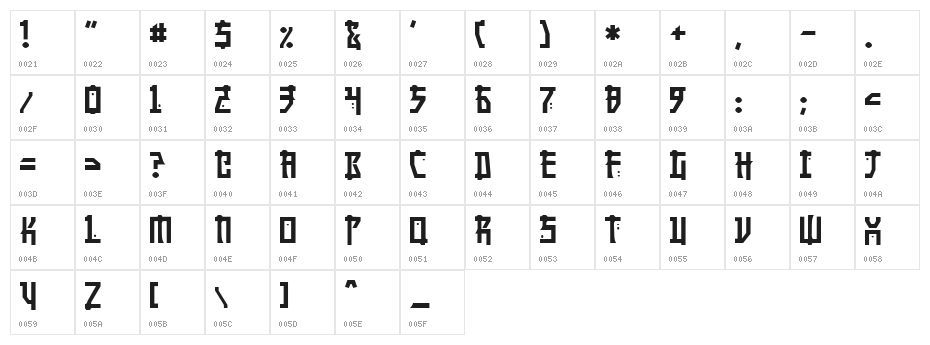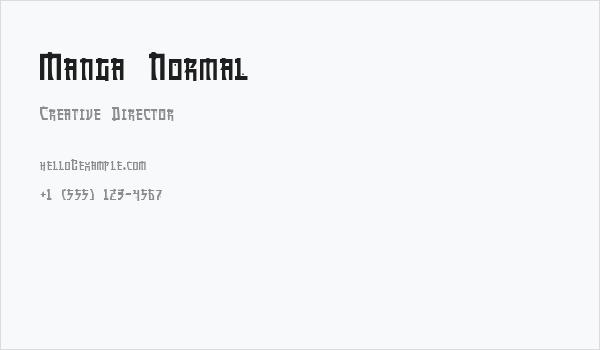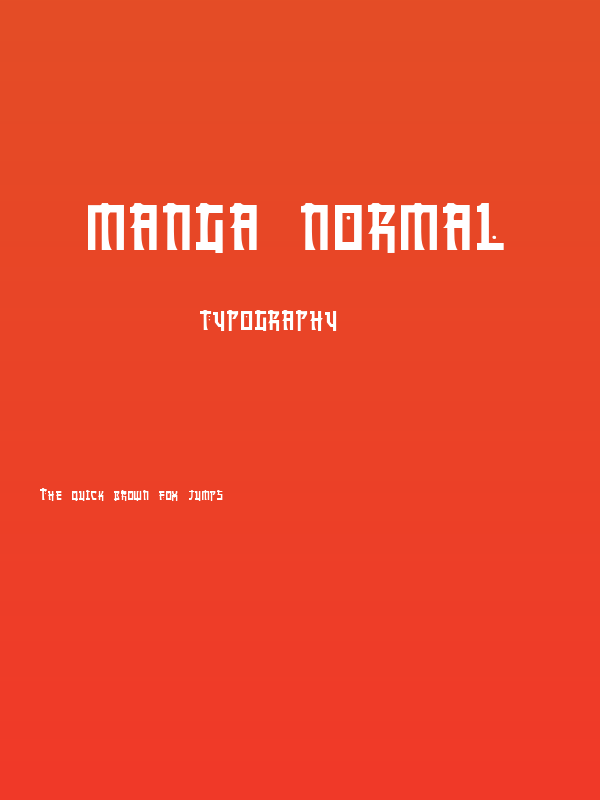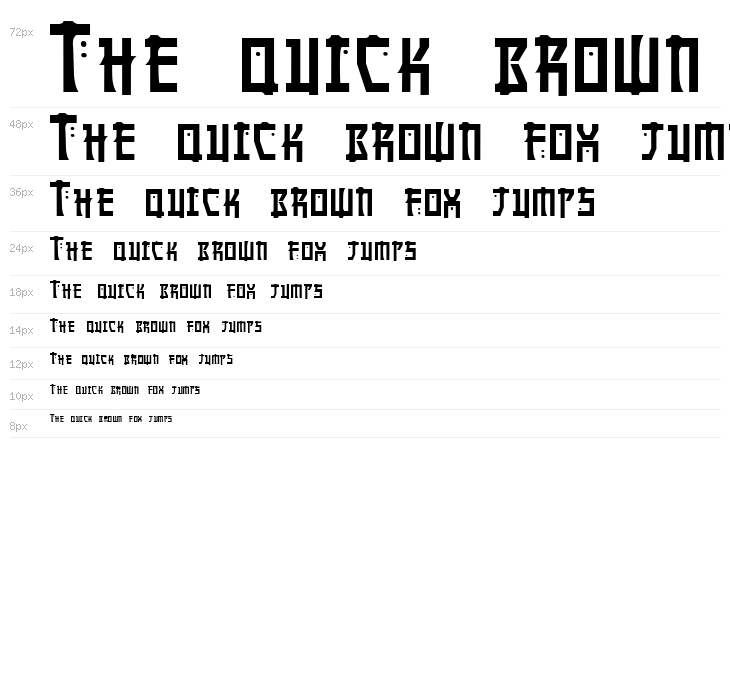
Manga Normal Font
Manga Normal Description
This font features a bold, geometric style with a distinct, angular appearance. Each character is crafted with sharp edges and a blocky structure, giving it a futuristic and industrial feel. The uppercase and lowercase letters maintain a consistent height, contributing to a uniform look across text. Numbers and special characters are designed with the same angular precision, ensuring a cohesive aesthetic. The font's unique design elements, such as the use of negative space and minimalistic dots, add a touch of modernity and intrigue. It is well-suited for projects that require a strong visual impact.
Proposed ProjectsIdeal for video game titles, tech branding, sci-fi book covers, and posters.